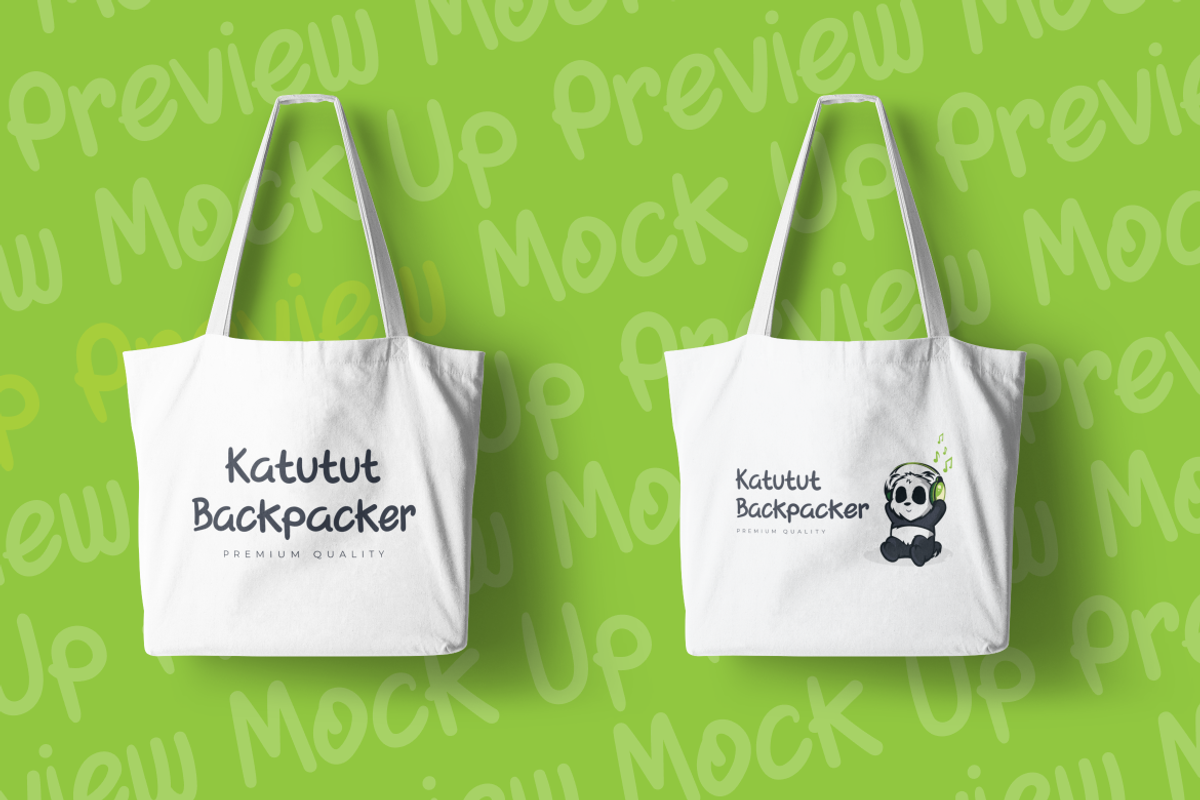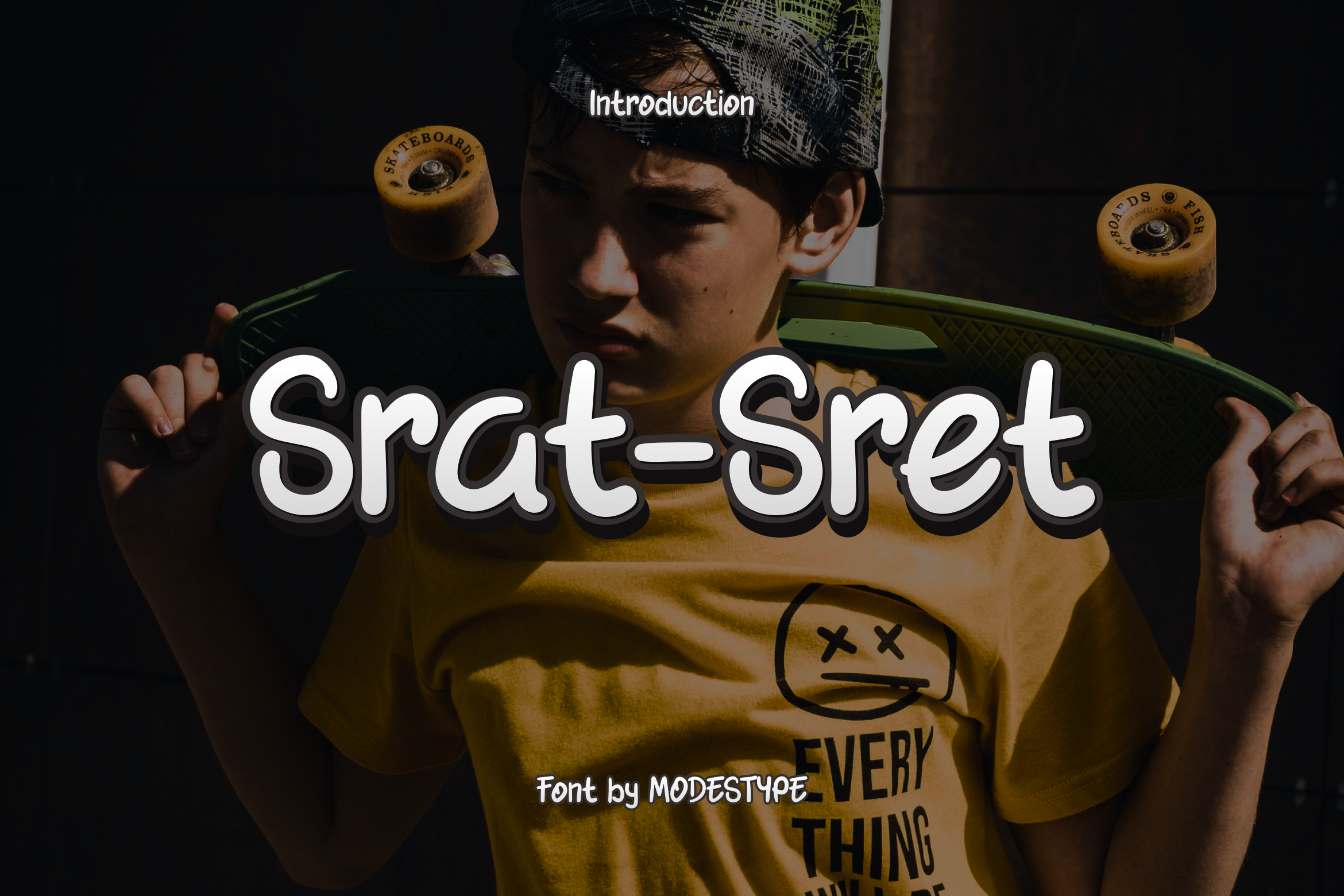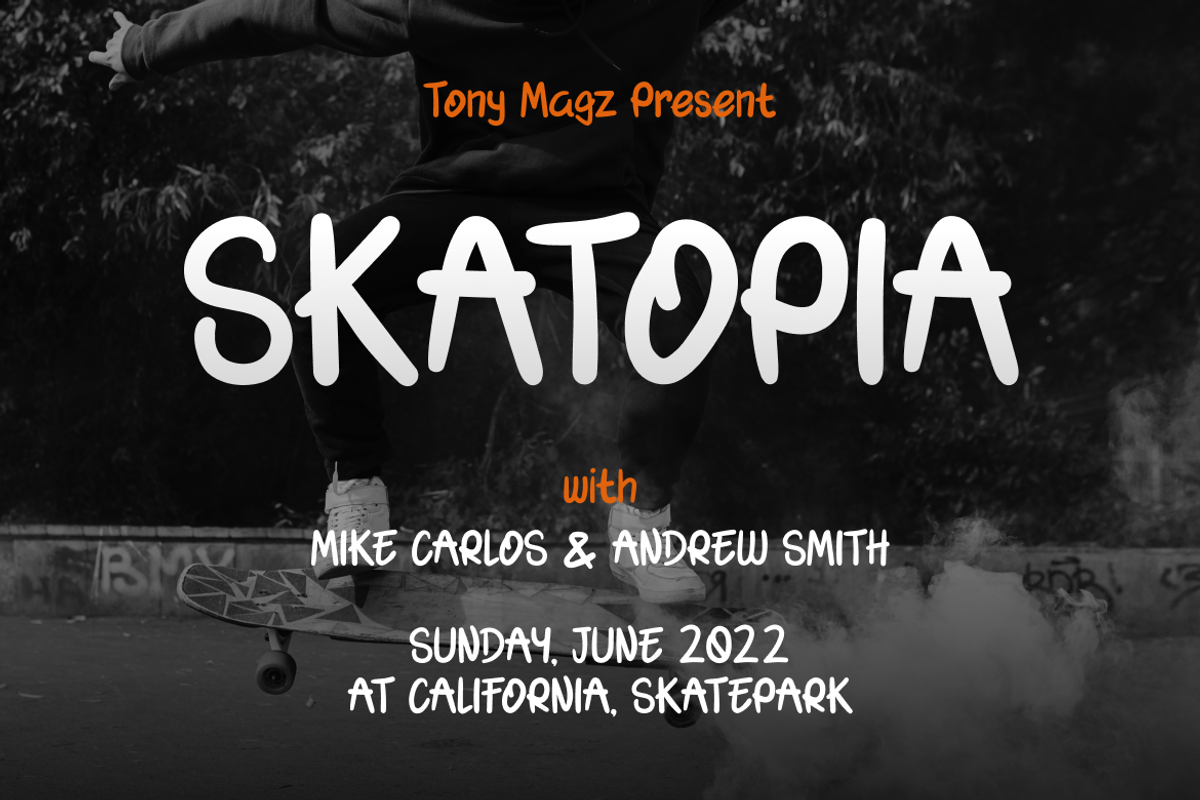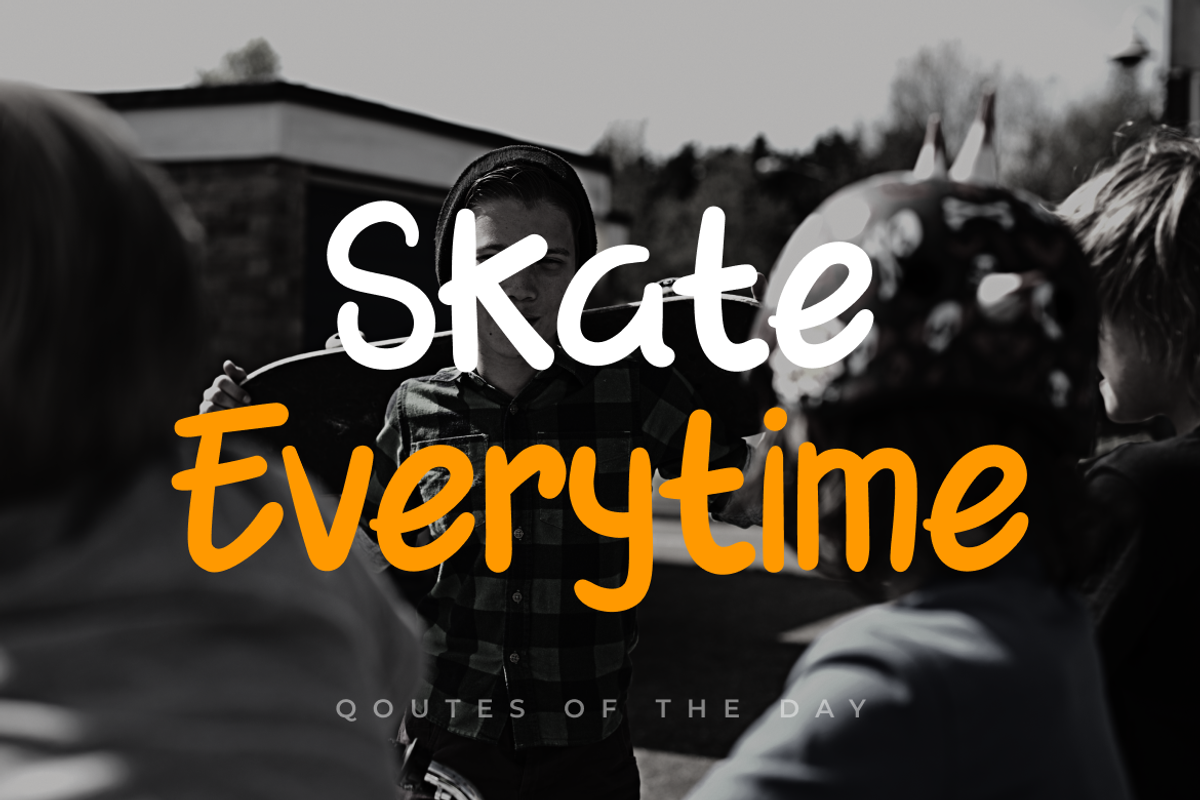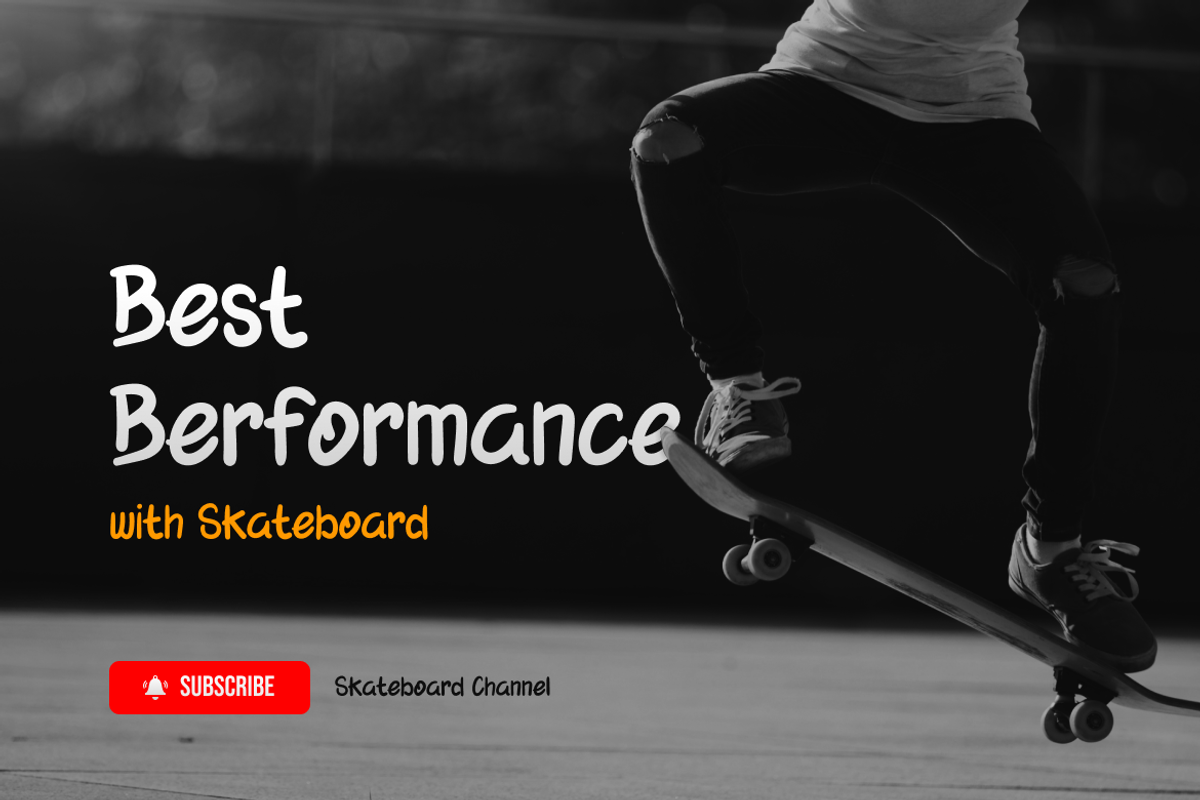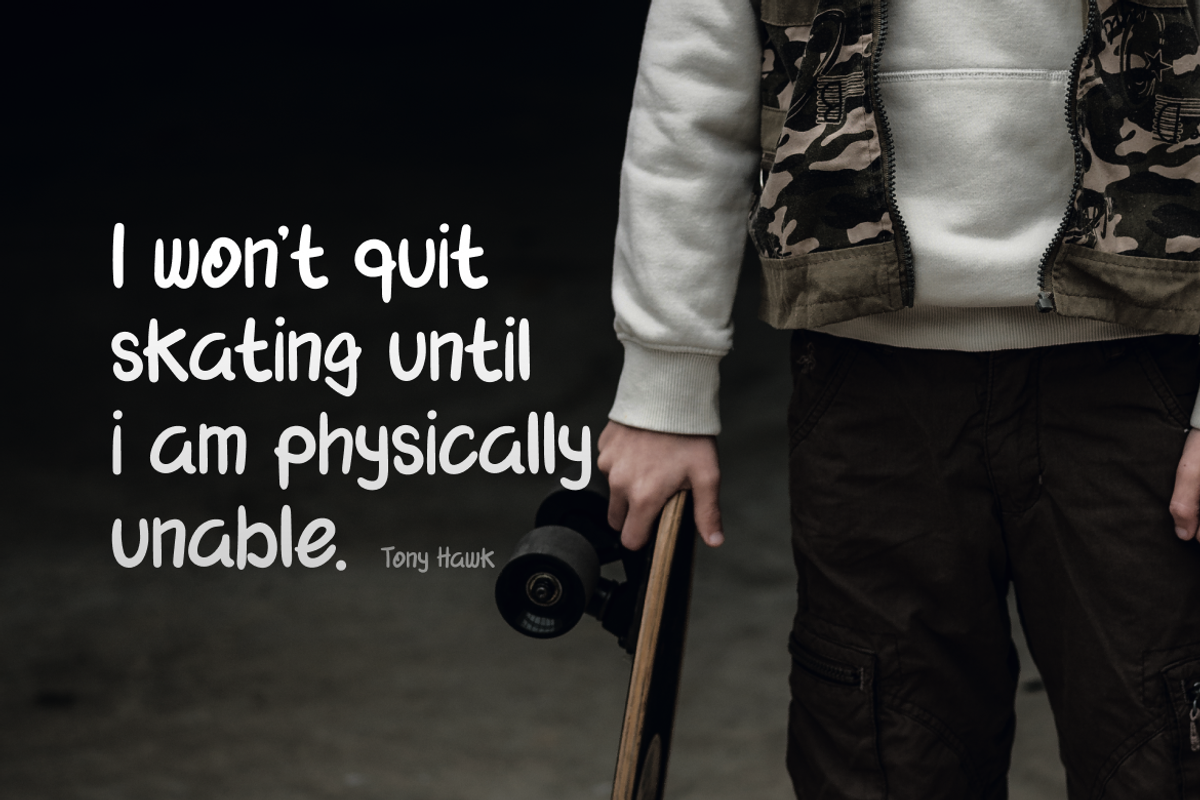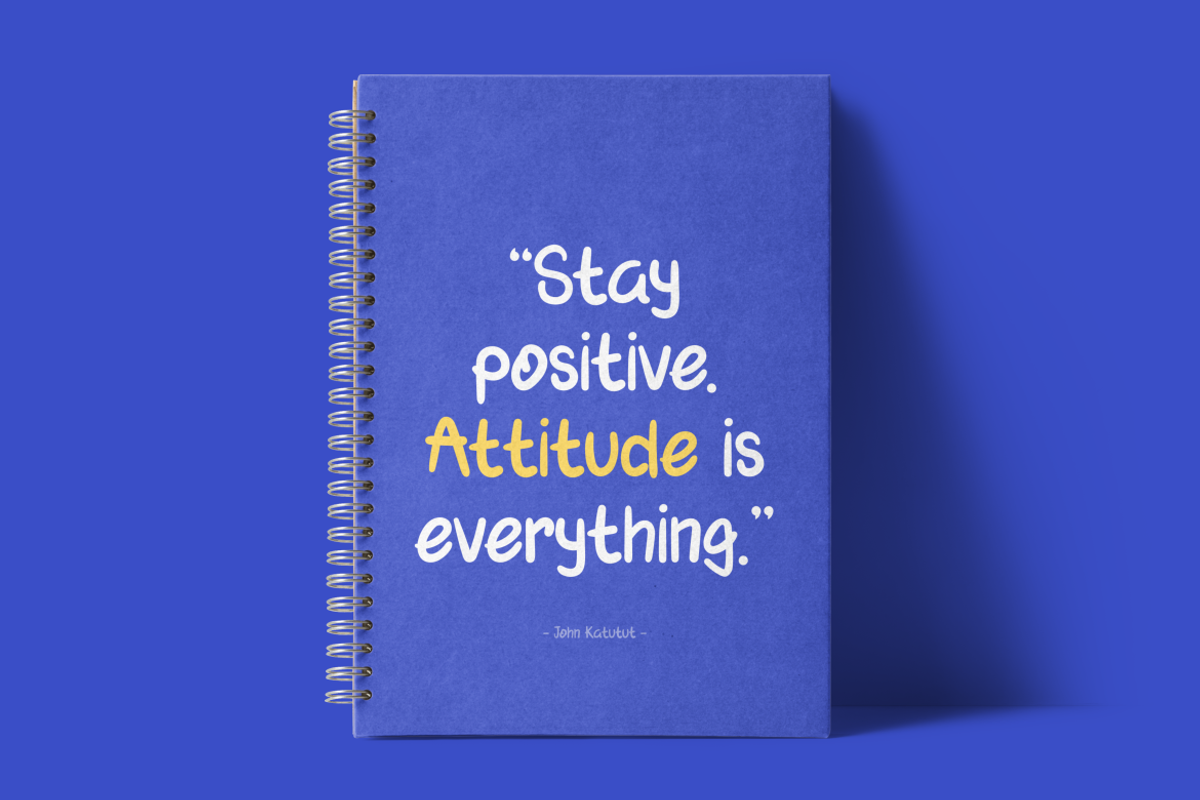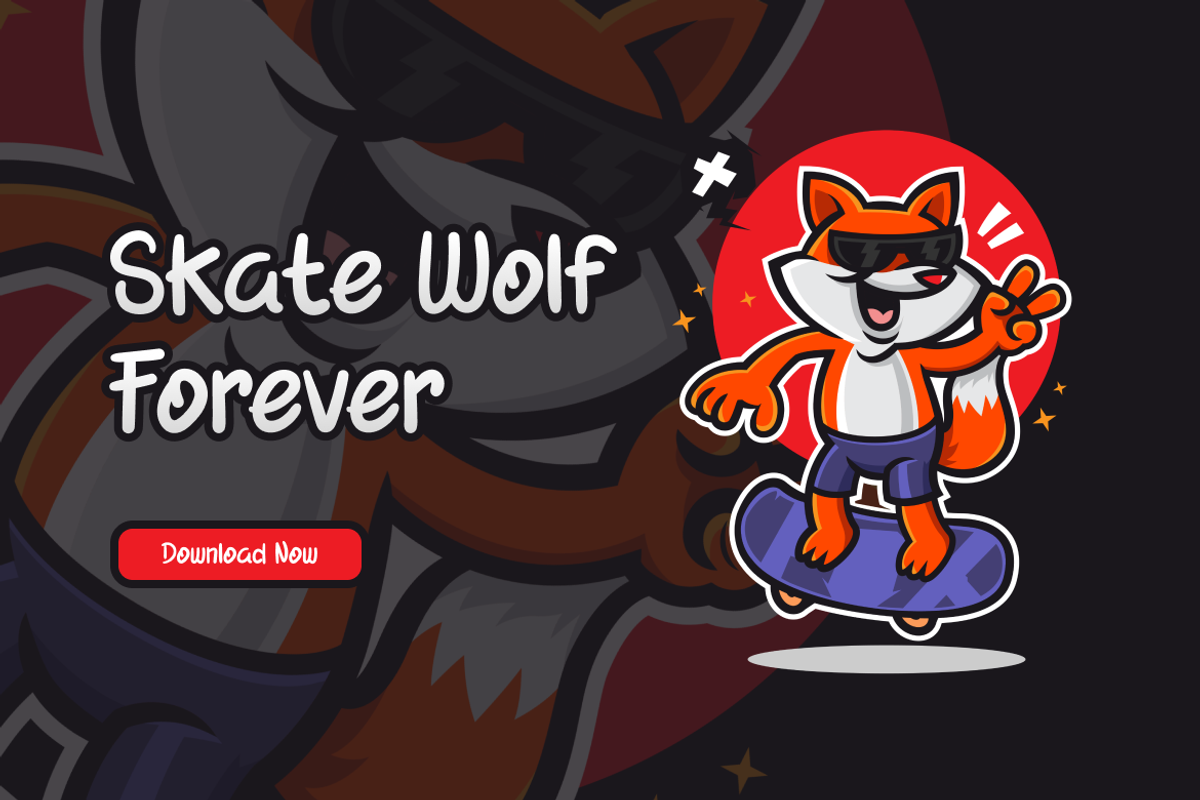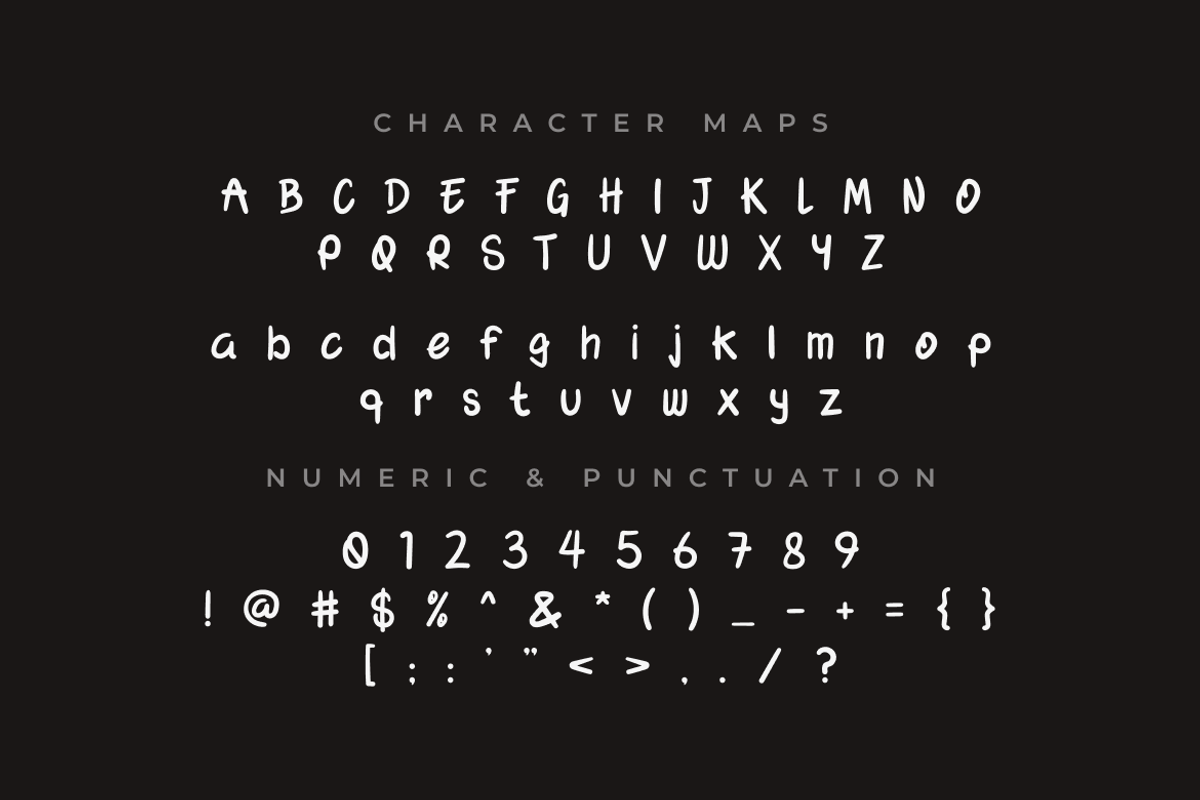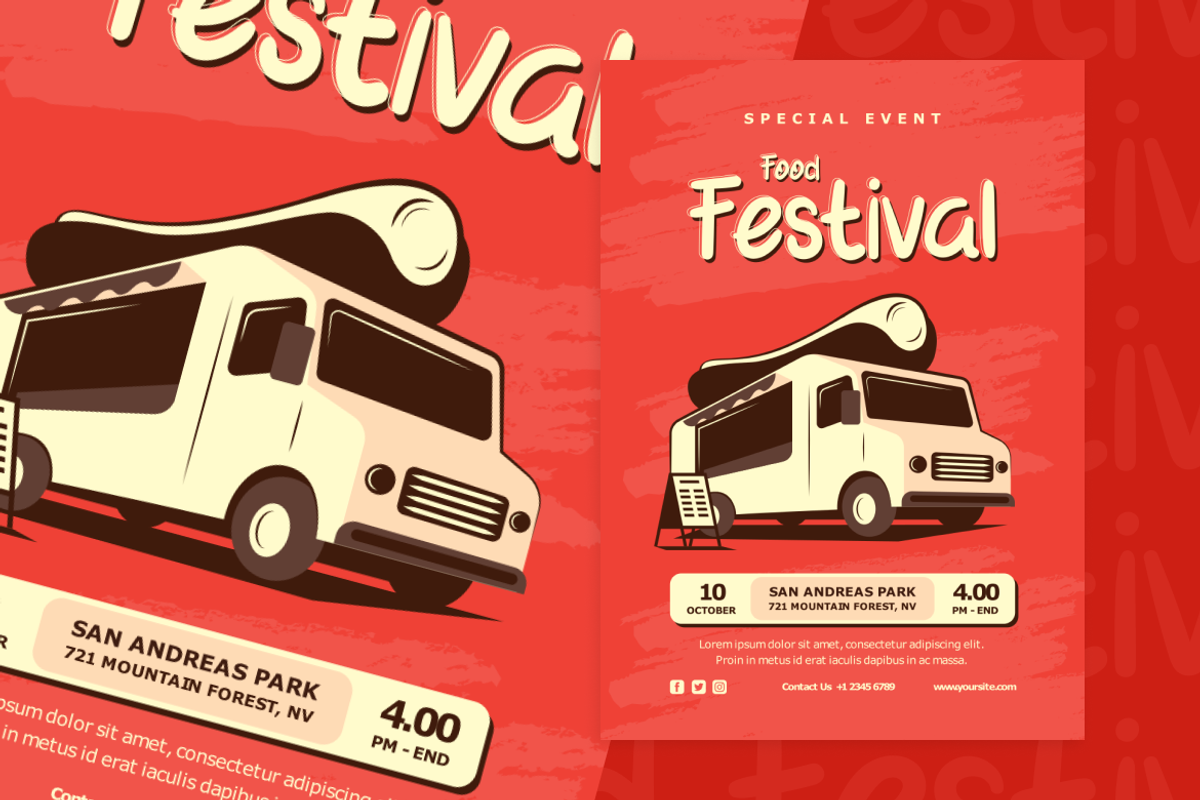
Srat Sret - Sporty Kids Font
Srat-Sret – Urban Display Font
Teenager with energy will making impact all over the world. Srat Sret is making that thing easier and faster.
Suit perfect for teenager books market, extreme sports games, event posters, school supplies font, posters, movie titles, youtube covers, youtube thumbnails, social media page covers, and so on...